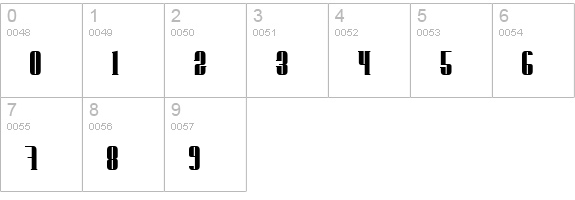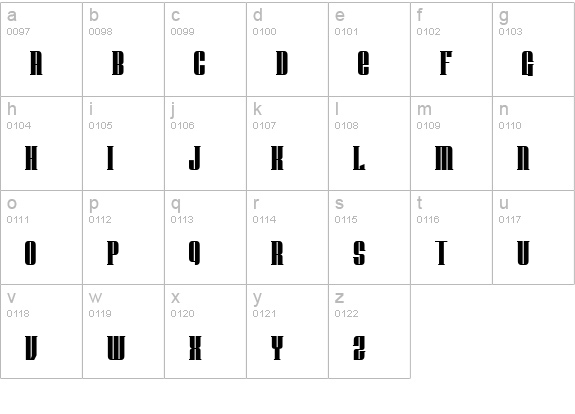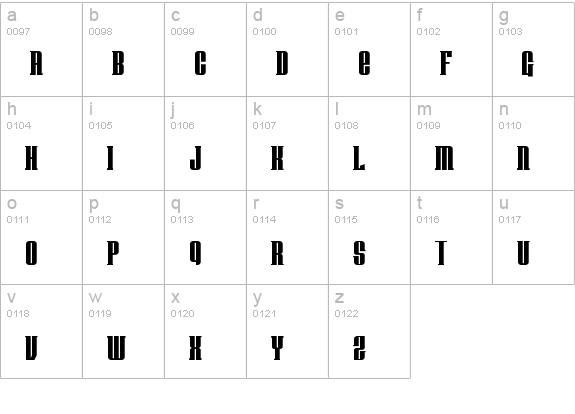
Donnie Font Details
Donnie font is a modern and stylish typeface that exudes elegance and sophistication. Its sleek lines and contemporary design make it perfect for a wide range of projects, from branding to editorial design. With its clean and versatile appearance, Donnie font can easily adapt to any creative concept, adding a touch of sophistication and professionalism. Whether you're designing a logo, a website, or a print layout, Donnie font will elevate your project to the next level. Best of all, Donnie font is completely free to download at FontsMarket.com. This means you can access this high-quality typeface without any cost, making it a valuable resource for designers, artists, and creatives alike. Don't miss out on the opportunity to enhance your projects with the beautiful and elegant Donnie font. Download it today and take your designs to new heights!